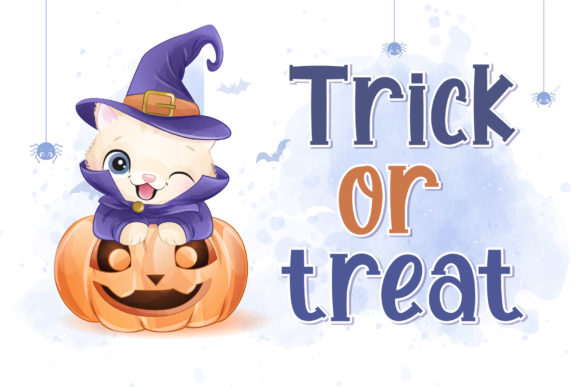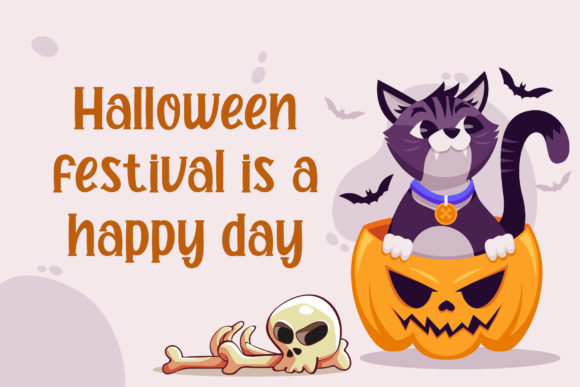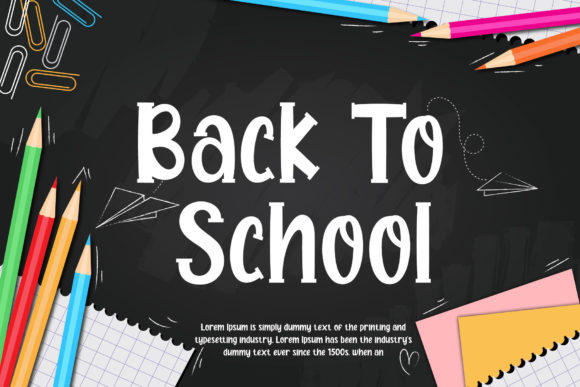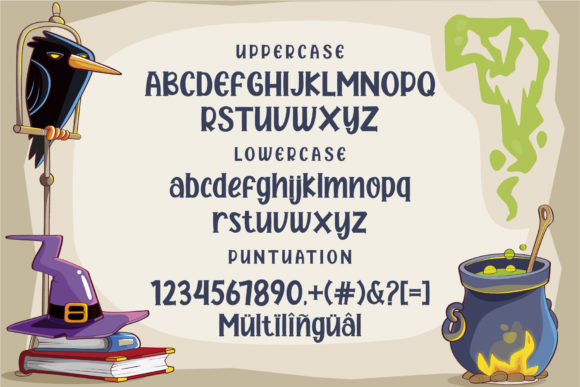
Introduction to Halloween Day’s Font Font
Fonts play a crucial role in design, and the Halloween Day’s Font font is a typeface that brings both character and versatility to any project. Whether you’re working on a branding project, a website, or a print design, the Halloween Day’s Font font offers a unique style that can elevate your work.
Haloween Day’s is a stylish display font for a variety of designs.
Haloween Day’s can be used for products such as handcraft, product packaging, quotes, product design, labels, photography, watermarks, logos & branding Use it for your upcoming crafting projects and see how they come alive.
The Halloween Day’s Font font is more than just a typeface – it’s a design tool that helps you communicate your message with style and clarity. Its unique character set and versatile design make it suitable for a wide range of applications, from elegant invitations to bold headlines.
With its carefully crafted letterforms and balanced proportions, the Halloween Day’s Font font ensures readability and visual appeal across all mediums.
The Halloween Day’s Font font stands out with its unique design, exceptional readability, and versatility across various design applications.